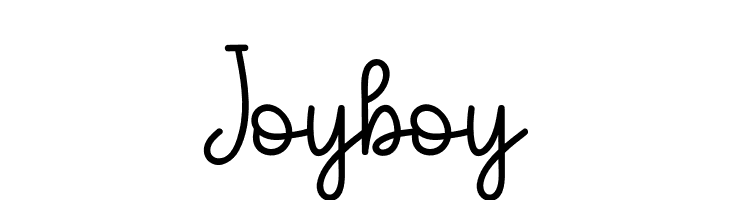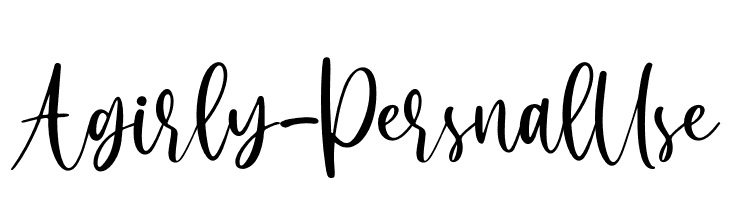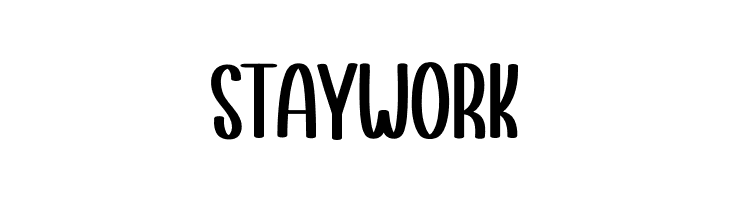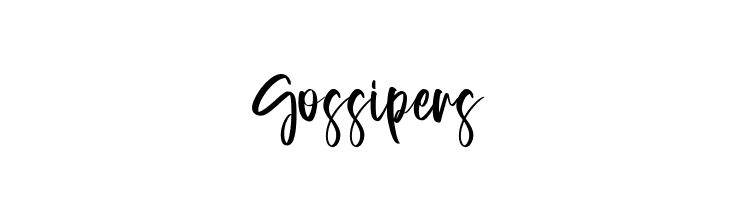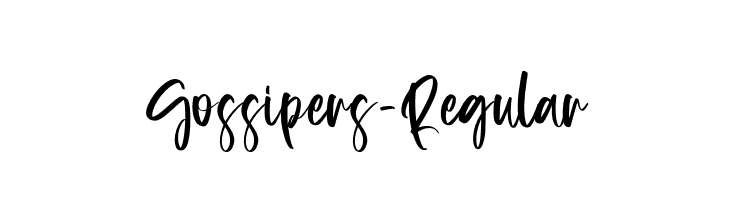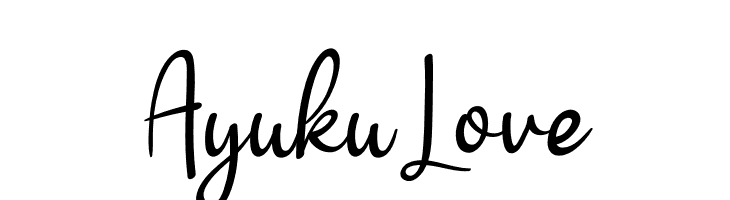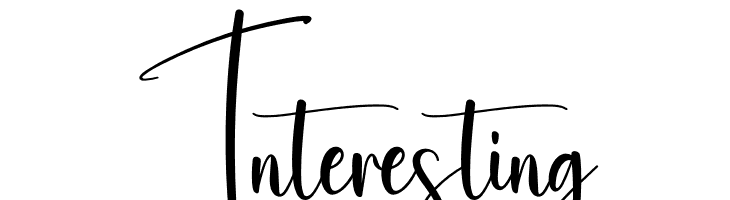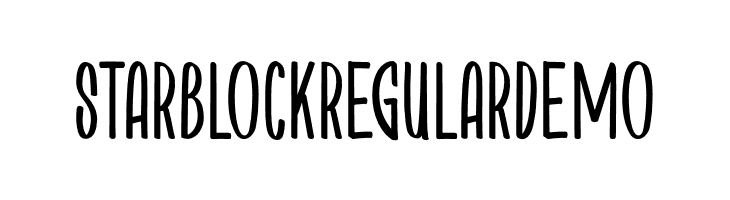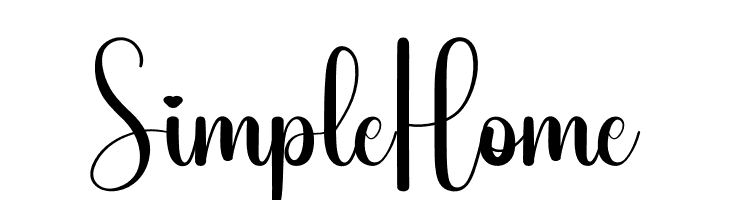
( Fonts by Belina Studio )
A playful, handwritten font with a casual and friendly appearance.
( Fonts by Absonstype Studio )
A playful, handwritten font with a modern, cursive style.
( Fonts by Scratchones )
A playful, bold font with rounded edges and a slightly condensed form.
( Fonts by Hatf Type )
A lively, expressive handwritten font with dynamic strokes and a playful style.
( Fonts by Hatf Type )
A lively handwritten font with fluid, cursive strokes and expressive characters.
( Fonts by epiclinez )
A playful, handwritten font with rounded, consistent strokes and a friendly appearance.
( Fonts by Dika )
A playful, casual handwritten font with fluid, connected letterforms.
( Fonts by Scratchones )
A dynamic and expressive script font with fluid, flowing letterforms.
( Fonts by Letterhend Studio )
A playful handwritten font with narrow, elongated characters.
( Fonts by Scratchones )
A modern, elegant script font with flowing cursive lines and smooth curves.